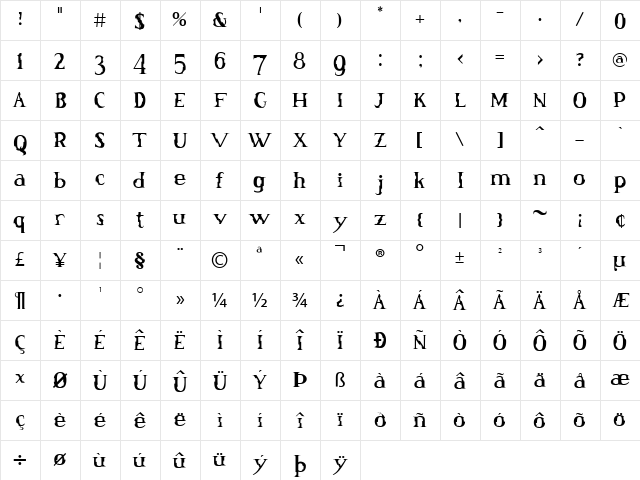
Complete Munch Munch Regular glyph index. Displaying only characters natively supported by Munch Munch Regular font.
Munch Munch is a composed and adaptable typeface that performs quietly and consistently across a wide range of design contexts.